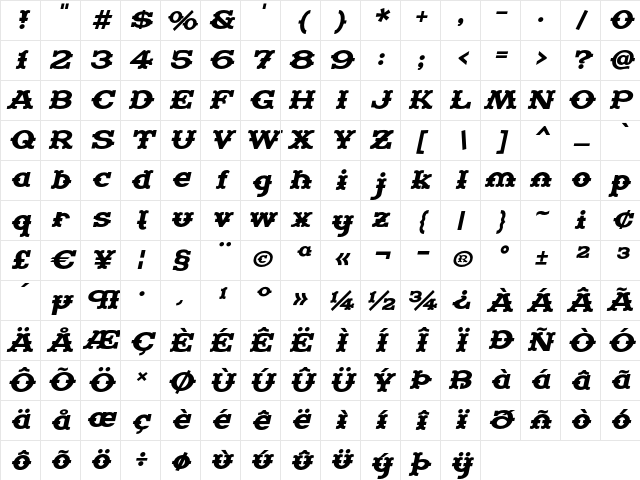
Arroyo Canyon Italic
Design Context for Arroyo Canyon
Arroyo Canyon is a composed and adaptable typeface that performs quietly and consistently across a wide range of design contexts. The slanted form adds forward momentum and visual energy.
Pro Tip: Use Arroyo Canyon for emphasis, pull quotes, and subheadings where its slanted energy can add rhythm to the layout.